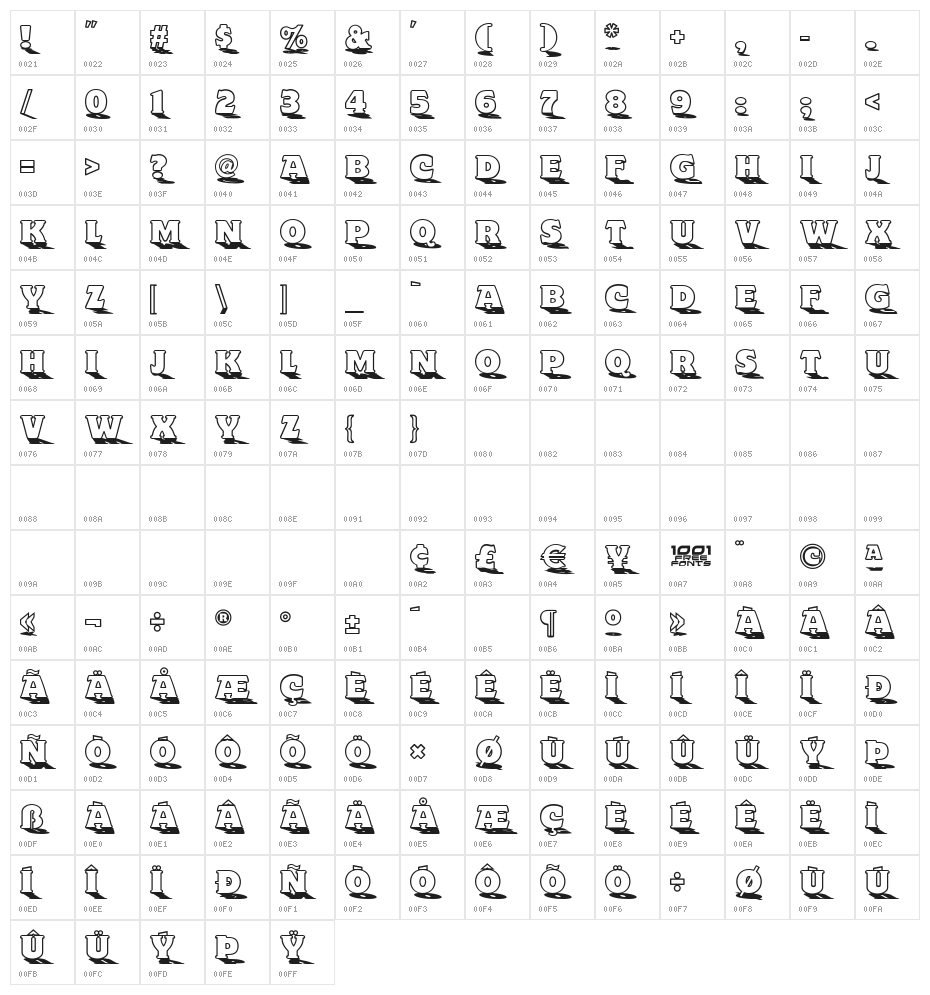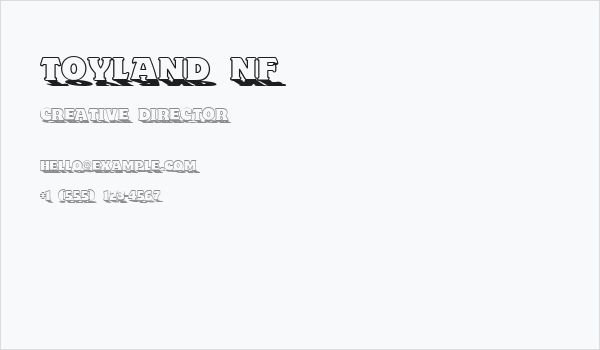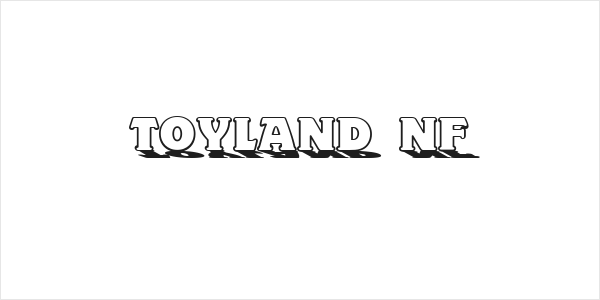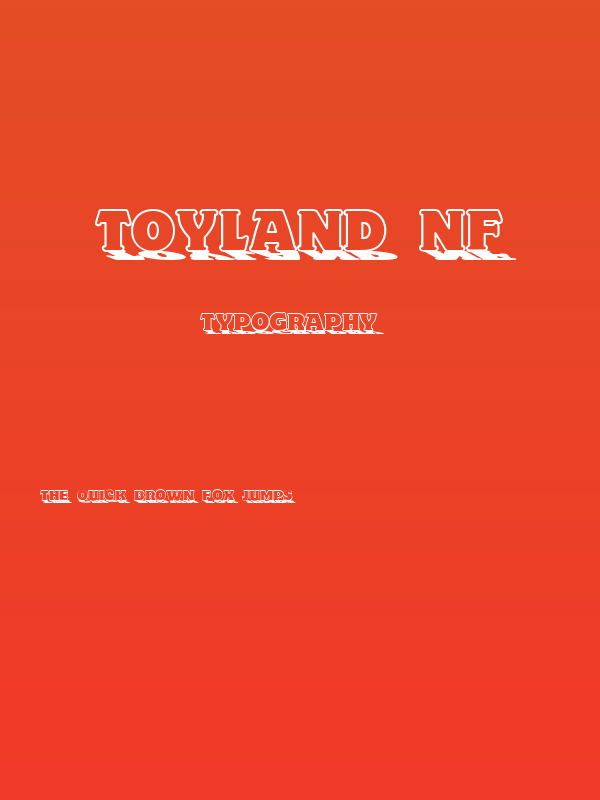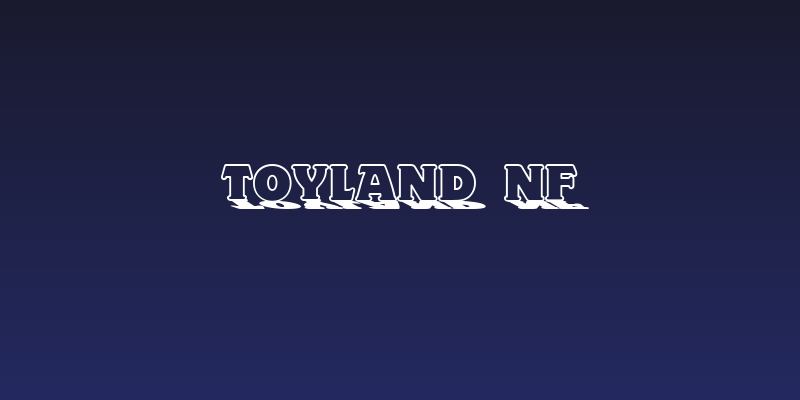
Toyland NF Font
Toyland NF Description
This font features a bold, playful design with a three-dimensional shadow effect that gives it a distinctive, eye-catching appearance. The characters are thick and robust, with a strong presence that makes them ideal for attention-grabbing headlines or titles. The shadow effect adds depth, creating a sense of movement and dynamism. The uppercase letters are uniform in height, while the numbers and special characters maintain the same bold style, ensuring consistency across all elements. The font's playful nature makes it suitable for creative projects, children's materials, or any design that requires a fun and lively touch.
| Overall Style | Playful, Fun |
| Proposed Projects | Ideal for children's books, playful branding, posters, and creative advertising. |